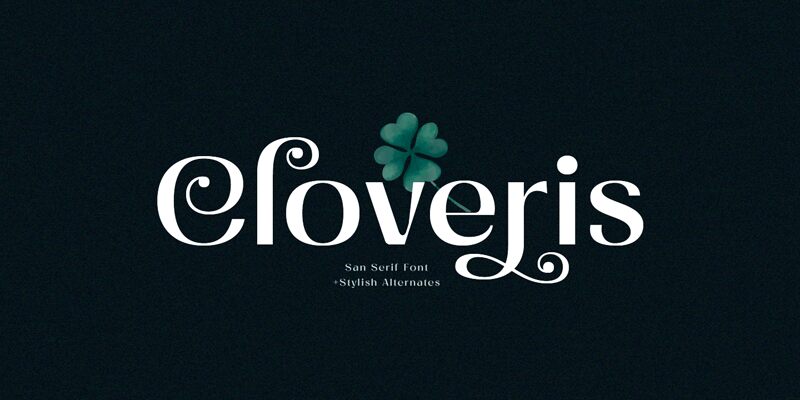
Introducing Cloveris, a wide and modern sans serif font designed by Sahrul Hidayat. This versatile font is perfect for crafting stylish logos, eye-catching posters, and creative web designs. Its bold features make it an ideal choice for branding projects that need to stand out.